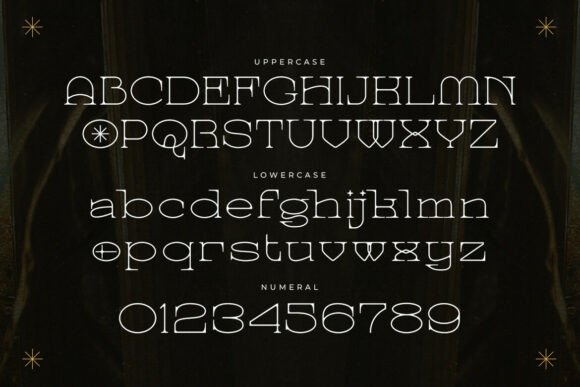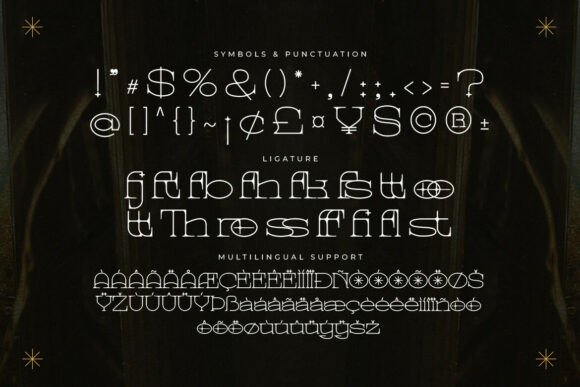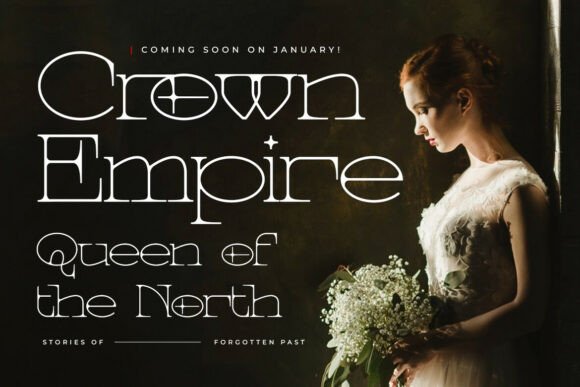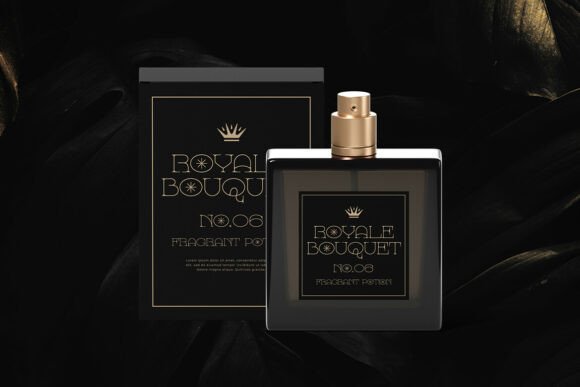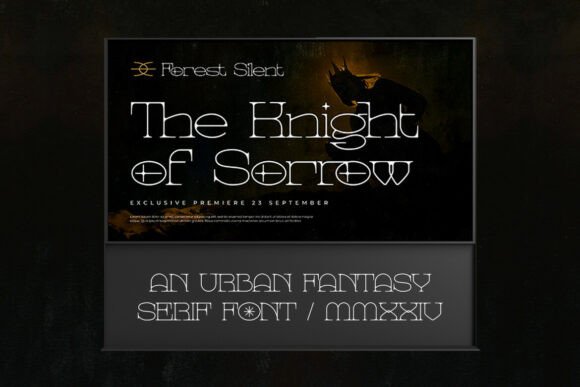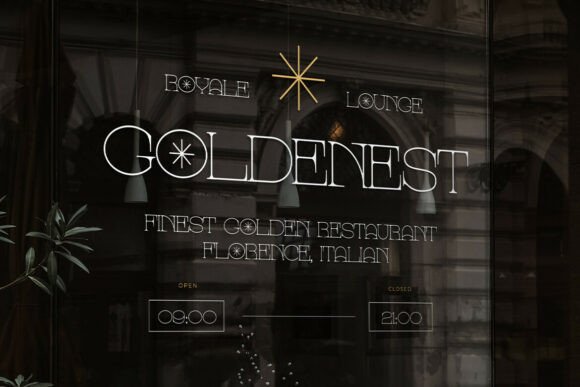
Introduction to Nirosse Font
As a designer, there’s nothing quite like the thrill of stumbling upon a font that perfectly captures the essence of your creative vision. For me, that moment came when I discovered the Nirosse Font – a stunning urban fantasy serif typeface that transported me to a world of elegance and mystery. Its intricate letterforms and ornamental details seemed to dance across the page, beckoning me to create something truly special.
The Nirosse Font is more than just a design resource – it’s a key to unlocking a world of high-quality, immersive typography that will elevate any creative project to new heights. With its free download and transparent background, designers can easily integrate this versatile font into their work, crafting unique visual identities that leave a lasting impression. Whether you’re working on a fantasy-themed book cover, movie title, or game branding, the Nirosse Font is an invaluable asset that will help you achieve your design goals.
Key Features of Nirosse Font
- Includes multiple font styles and weights for versatility in design
- Unique characteristics: elegant, modern, and minimalist design aesthetic
Honest Review: Nirosse Font
As a designer, I’ve had the chance to explore a wide range of fonts, and the Nirosse Font has caught my attention. I must say, it’s a high-quality design resource that can elevate any creative project.
What works well: ✨ The Nirosse Font has a unique, modern design that’s perfect for contemporary projects. The font is also highly versatile, making it suitable for various applications, from headings to body text. Its transparent background allows for seamless integration with different backgrounds, giving designers more flexibility in their designs.
Here are some key features that make the Nirosse Font stand out:
- High-quality design with a modern twist
- Perfect for creative projects, such as logos, brochures, and websites
However, I did encounter some limitations: ⚠️ The font may not be suitable for projects that require a more traditional or classic look. Additionally, the free version has some limitations, such as limited font styles and sizes.
Overall, I’m impressed with the Nirosse Font, and I would recommend it to designers looking for a high-quality, modern font. Its unique design and versatility make it a valuable addition to any design resource library.
The Nirosse Font is ideal for creative projects, such as logo design, branding, and marketing materials. Its high-quality design and transparent background make it perfect for adding a touch of sophistication to your design.